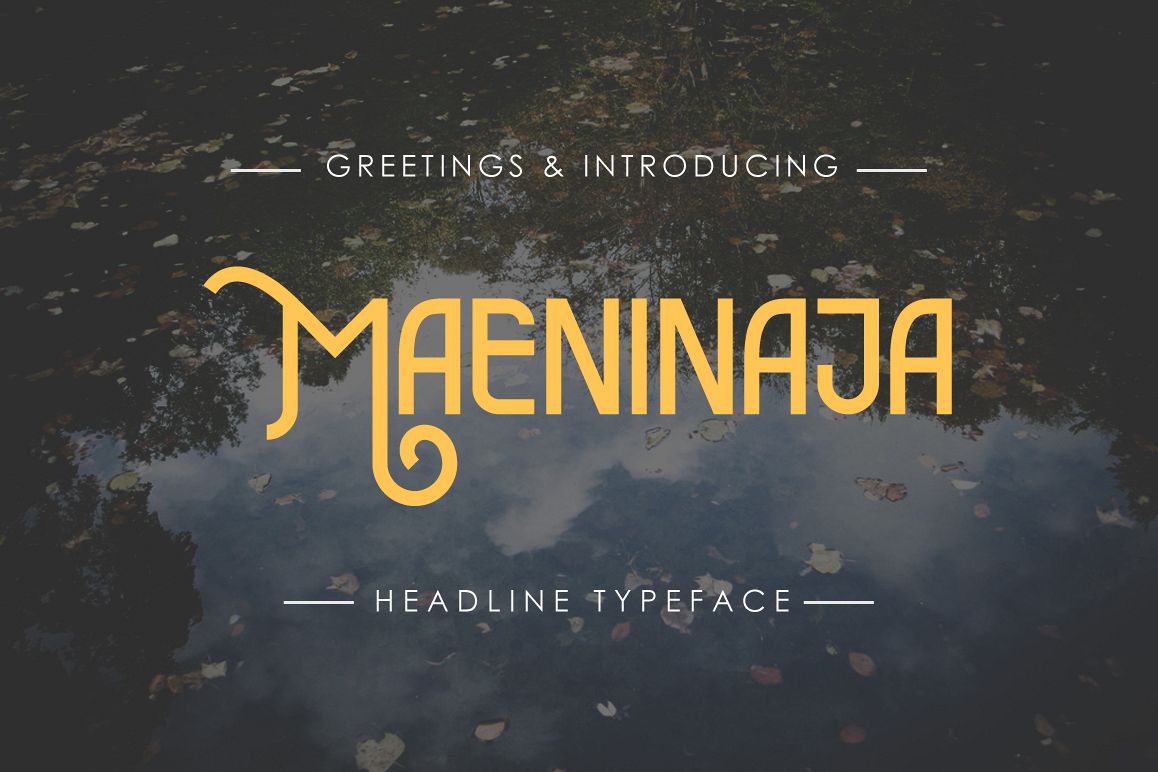
Maeninaja Typeface
Greetings and introducing my first typeface item named "Maeninaja" which it name came from 2 words from Indonesian language that is "Mainin" and "aja" which in english that mean "Just play it!". So, in this typeface i invite you to playing with your capslock and make your own letters simply!
Maeninaja Typeface